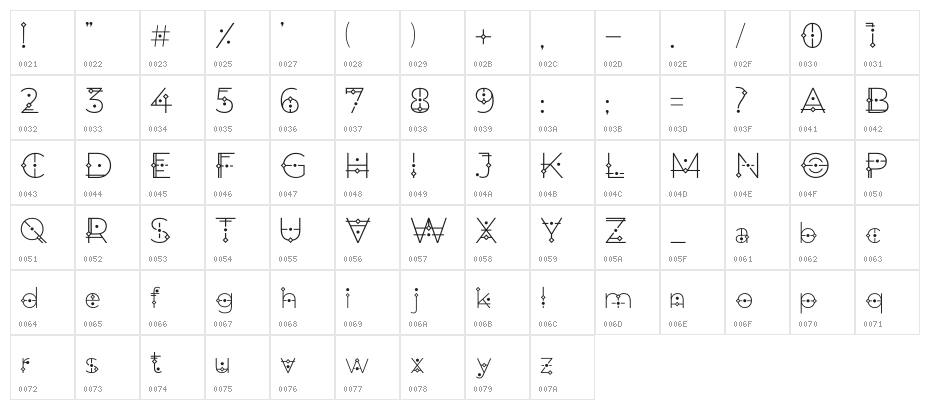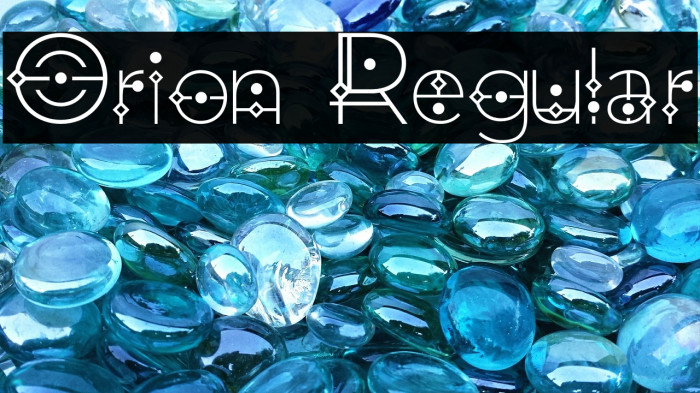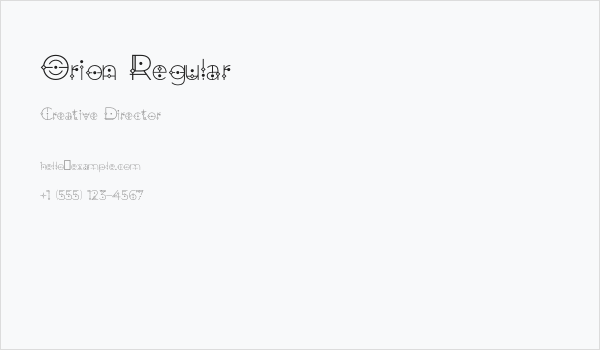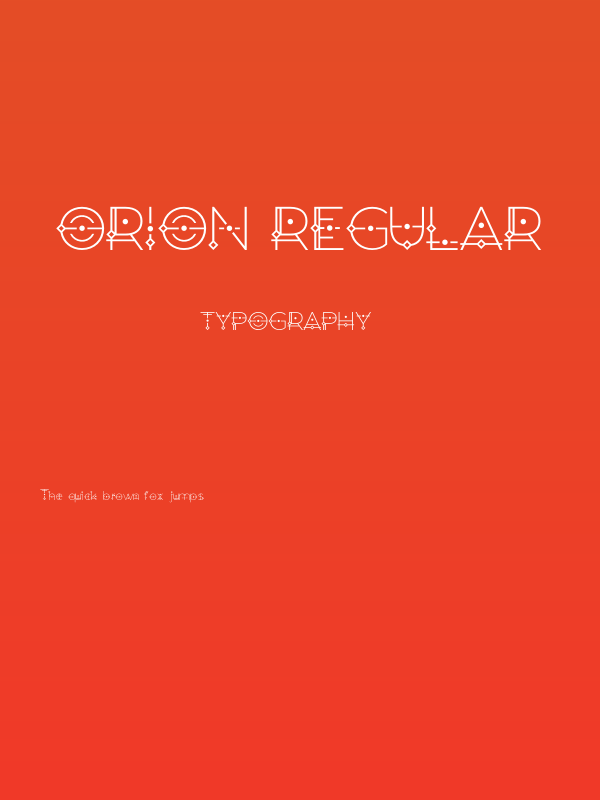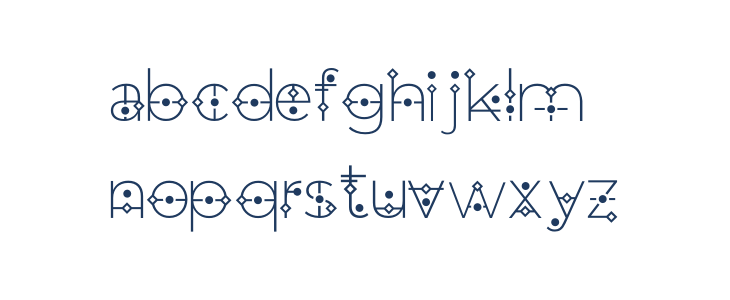
Orion Regular Font
Orion Regular Description
This font features a unique and futuristic design, characterized by geometric shapes and intricate line details. Each character is crafted with a combination of circles, lines, and dots, creating a visually striking appearance. The uppercase and lowercase letters maintain a consistent style, with angular elements and symmetrical patterns. Numbers and special characters follow the same design principles, ensuring a cohesive look throughout. The font's distinct style makes it ideal for projects that require a modern and avant-garde aesthetic.
| Use Case | Logos, Posters, Branding |
| Proposed Projects | Ideal for sci-fi themed designs, technology branding, innovative product packaging, and modern art posters. |